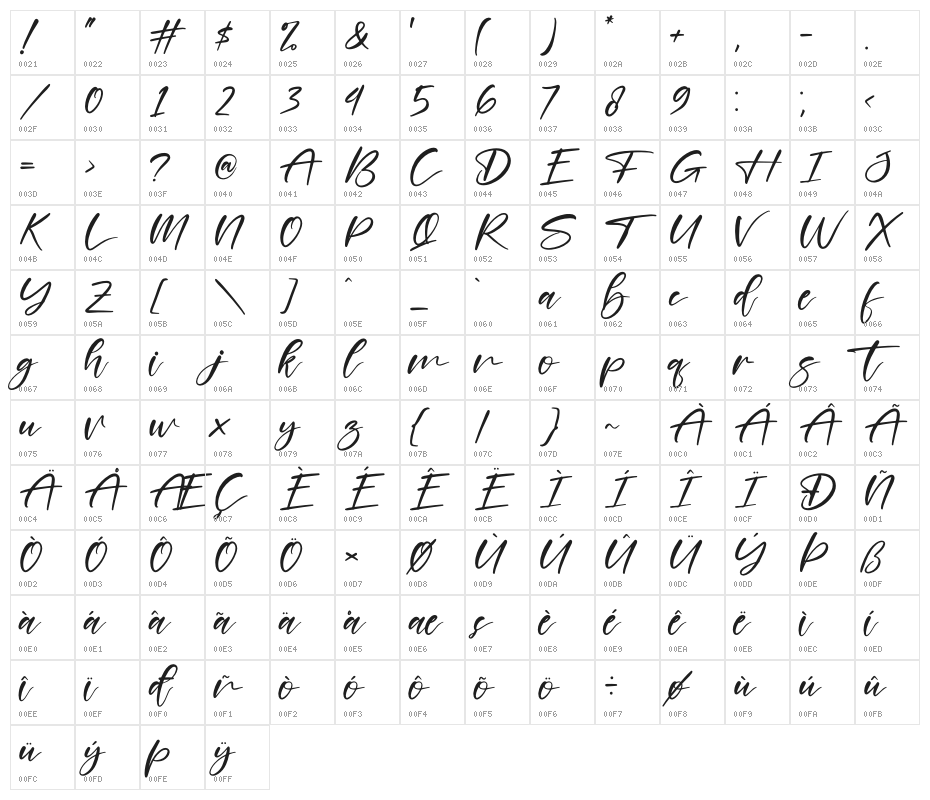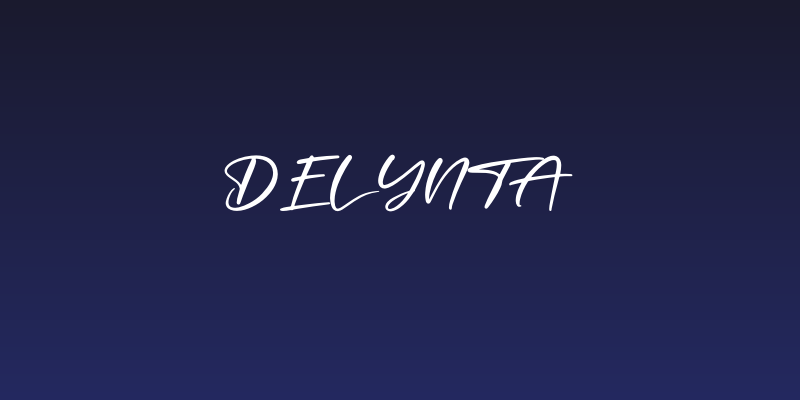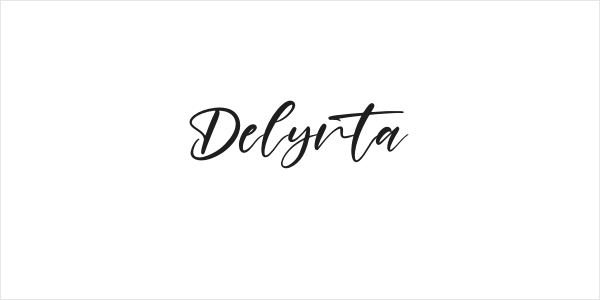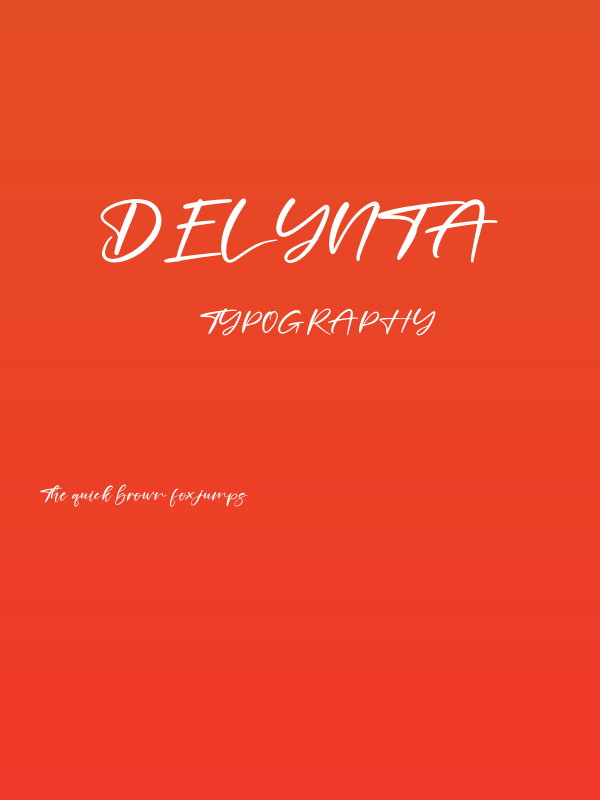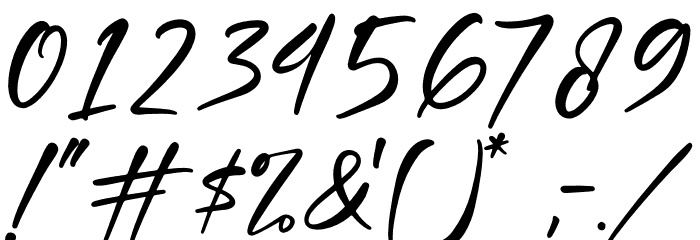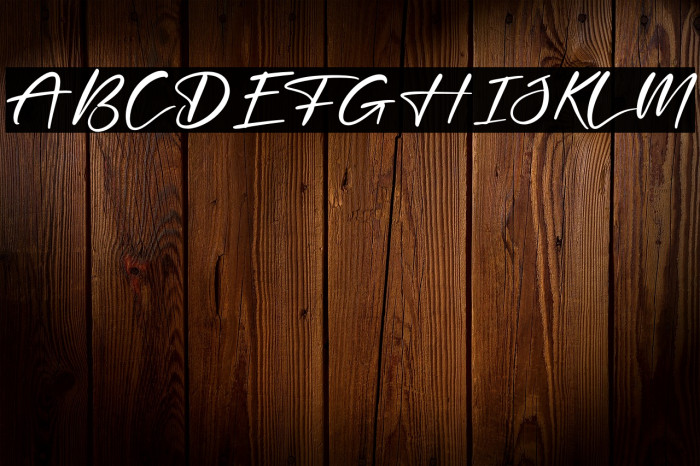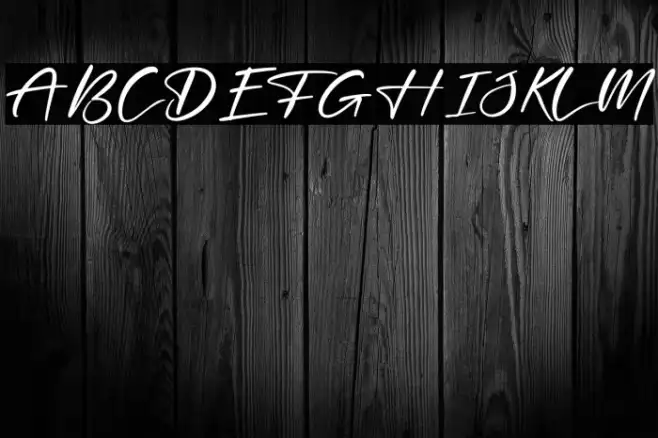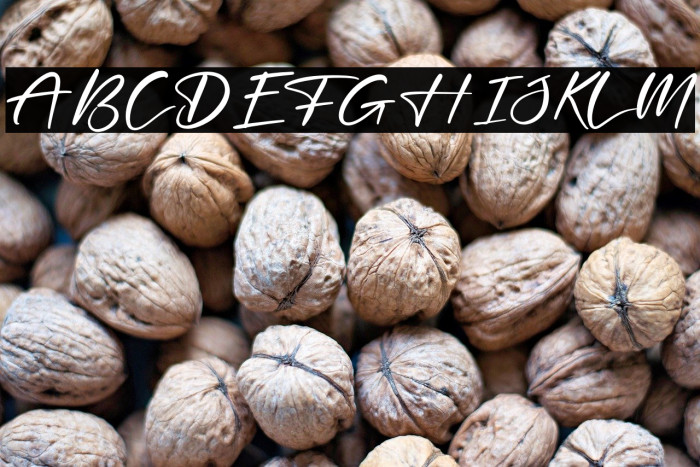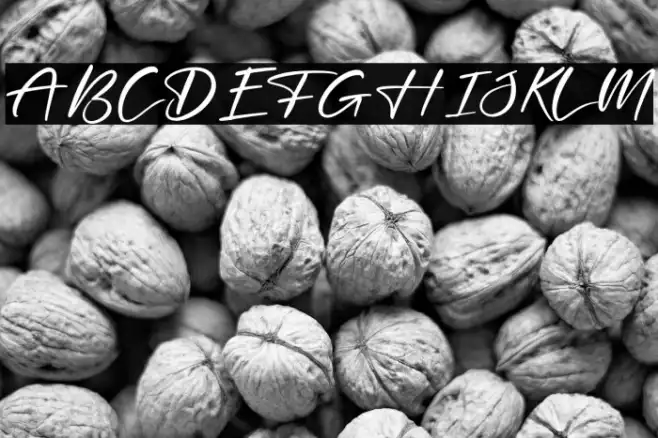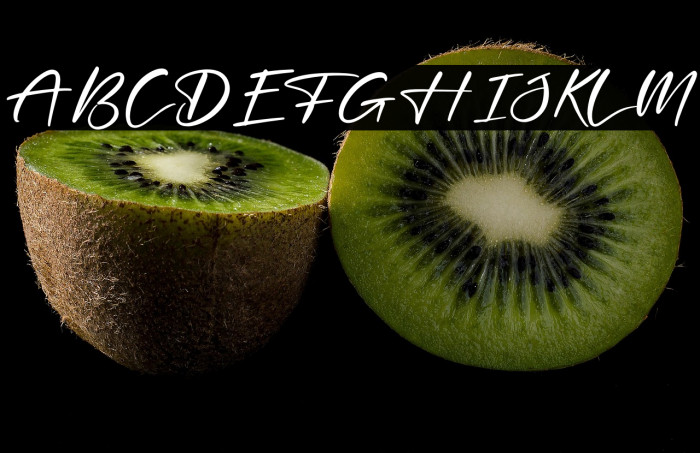
Delynta Font
Delynta Description
This font features a dynamic and fluid script style, characterized by its elegant, flowing lines and a handwritten appearance. The letters are connected in a cursive manner, giving it a personal and artistic touch. The uppercase letters are bold and slightly slanted, while the lowercase letters maintain a consistent flow with varying stroke widths, adding a sense of movement and grace. The numerals and special characters complement the overall style, maintaining the same fluidity and elegance. This font is perfect for projects that require a personal, artistic, or elegant touch.